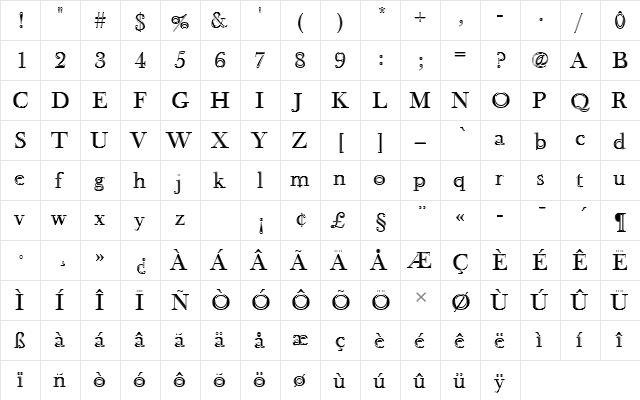
BaskervilleOldFacDIn1 Regular Font Preview
BaskervilleOldFacDIn1 Regular
Design Context for BaskervilleOldFacDIn1 Typeface
BaskervilleOldFacDIn1 takes a measured approach to typography — its balanced proportions and neutral character make it a reliable workhorse for both digital and print work.